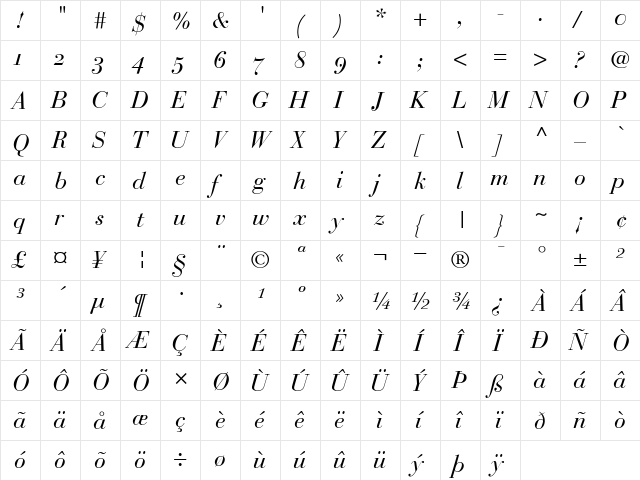
BauerBodoniOldstyleFigures RomanItalic Font Preview
BauerBodoniOldstyleFigures RomanItalic
Design Context for BauerBodoniOldstyleFigures Typeface
BauerBodoniOldstyleFigures brings classic typographic sensibility to the table — its serifs and measured letterforms reflect centuries of print heritage. The dynamic lean of this cut emphasises speed and emphasis in any layout.
Pro Tip: Set BauerBodoniOldstyleFigures with slightly loose tracking in headlines to let each letterform's detail read clearly at display sizes.